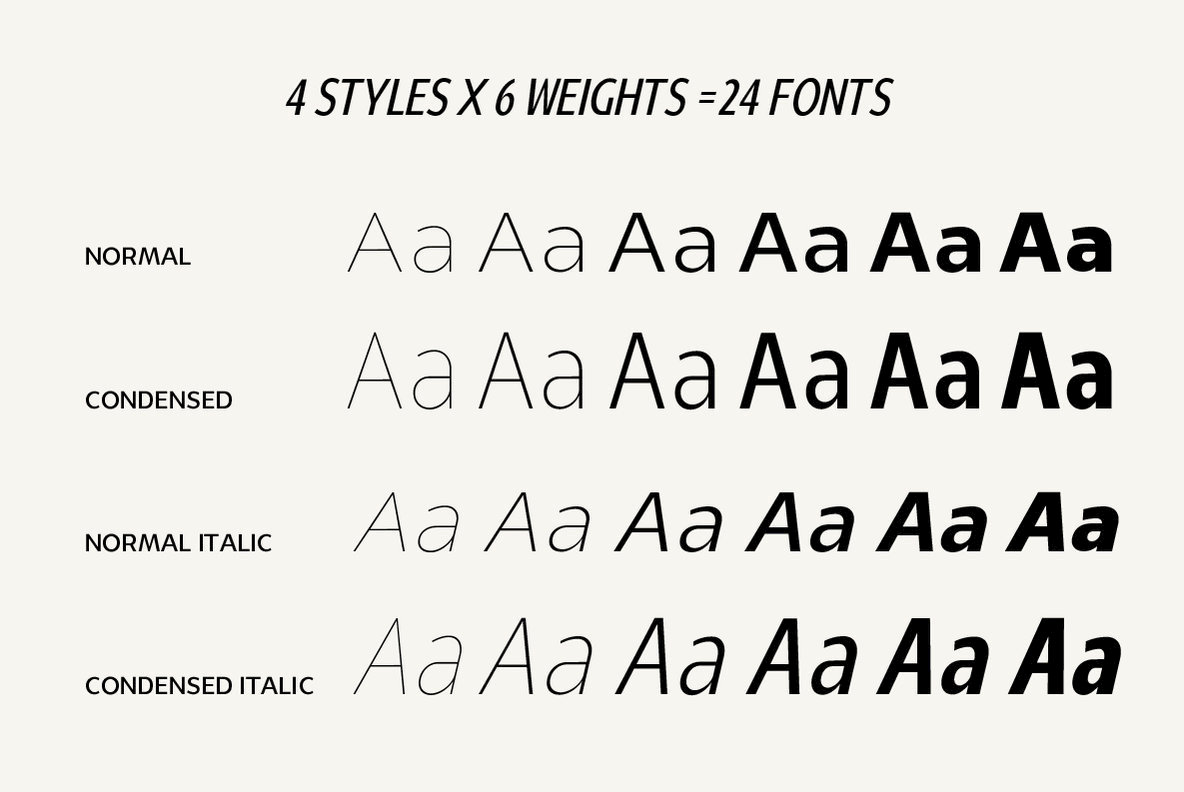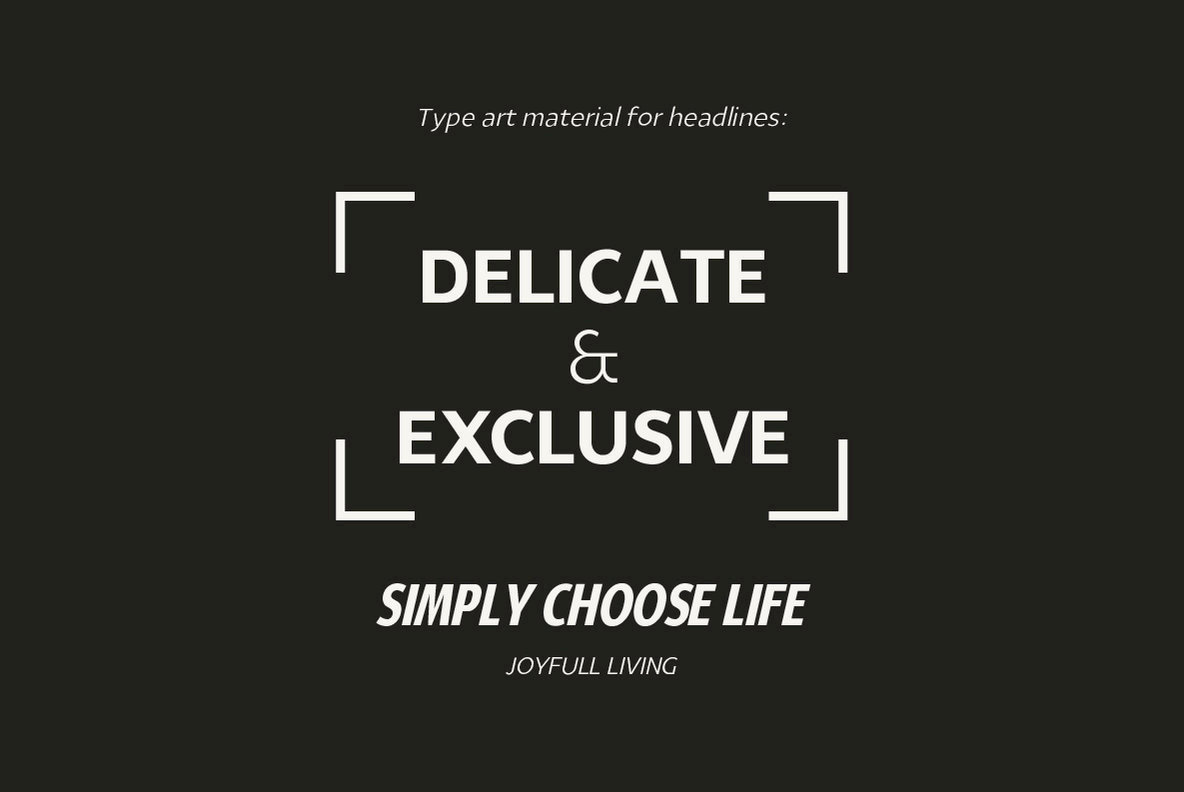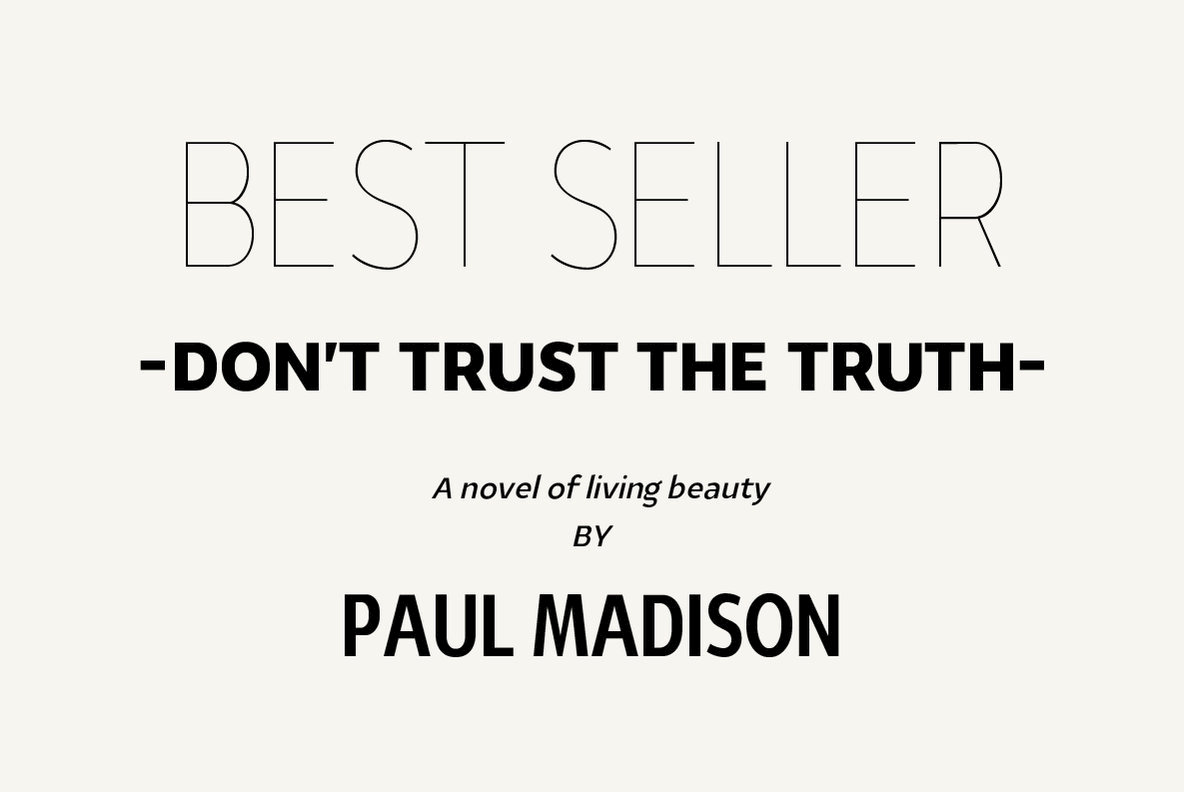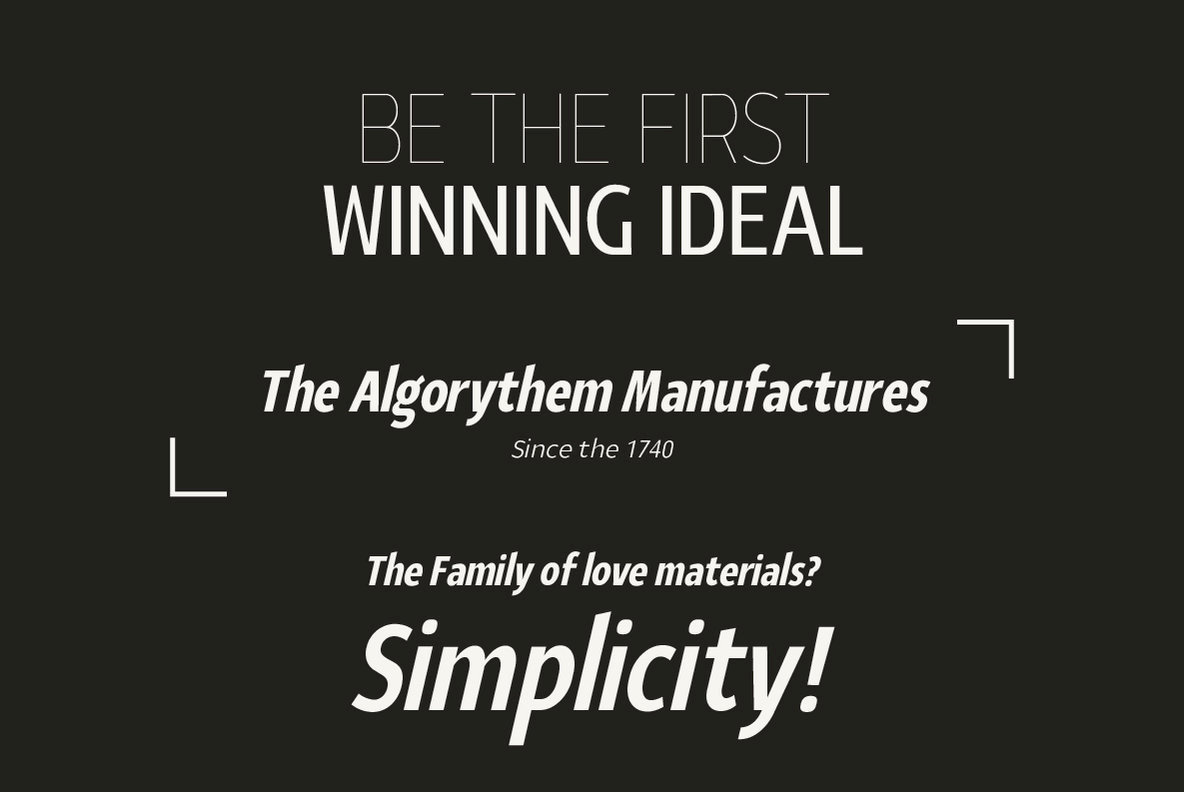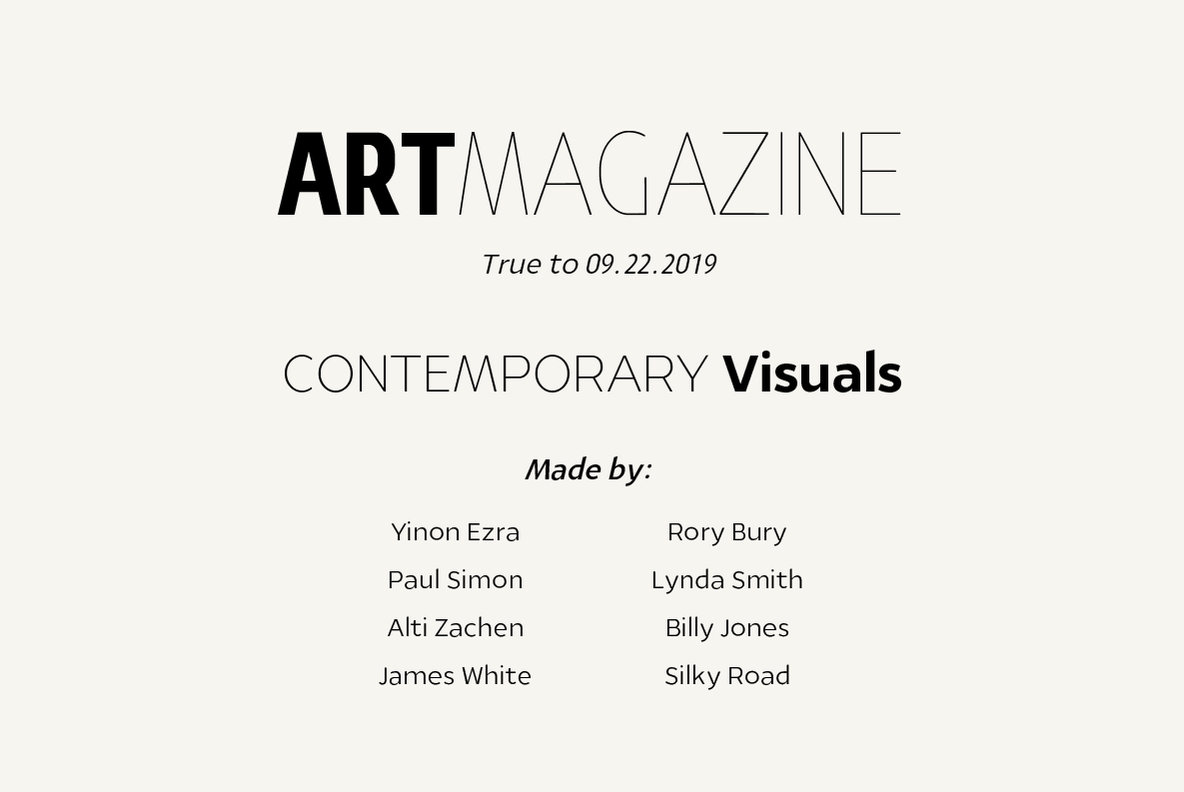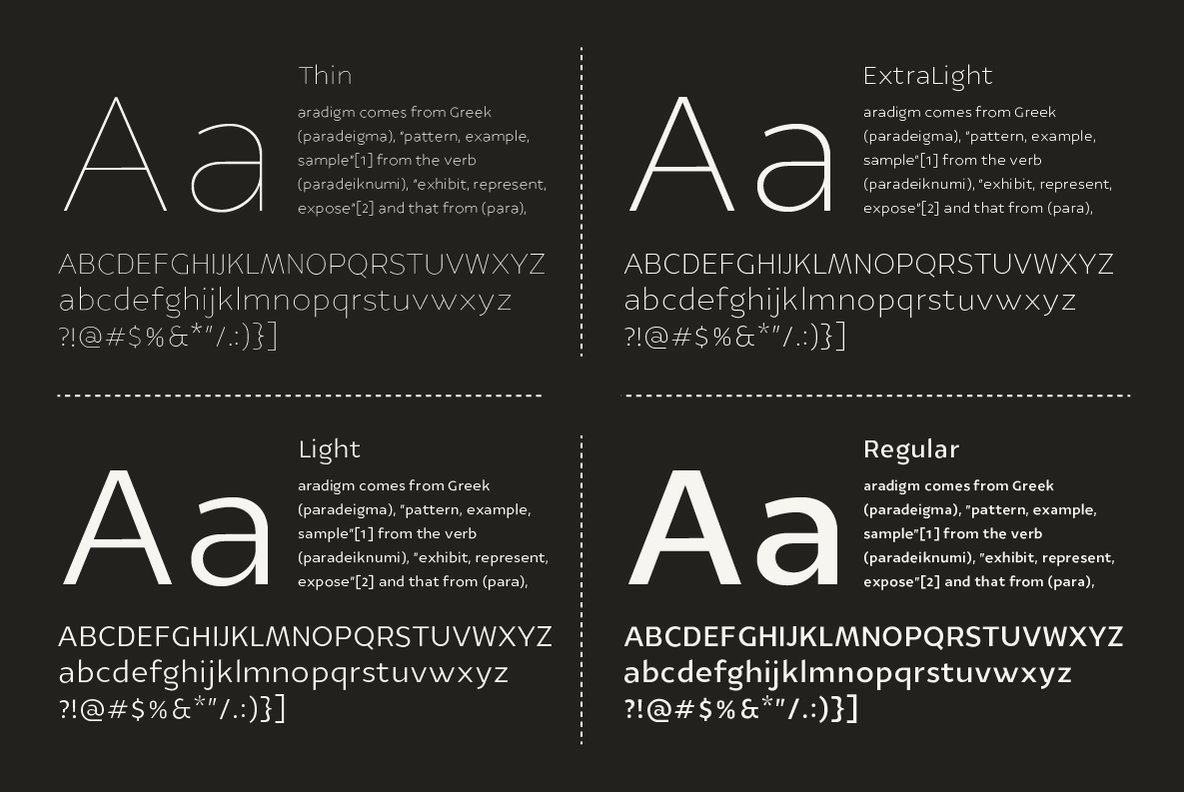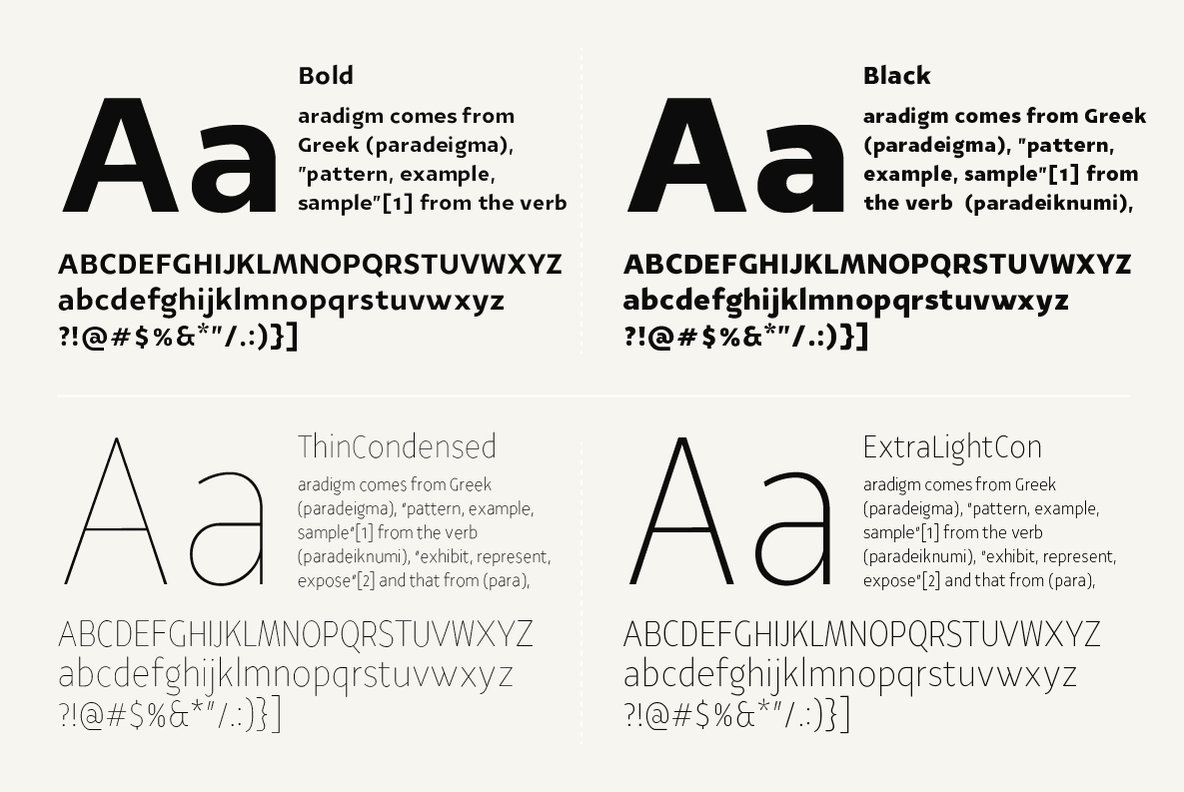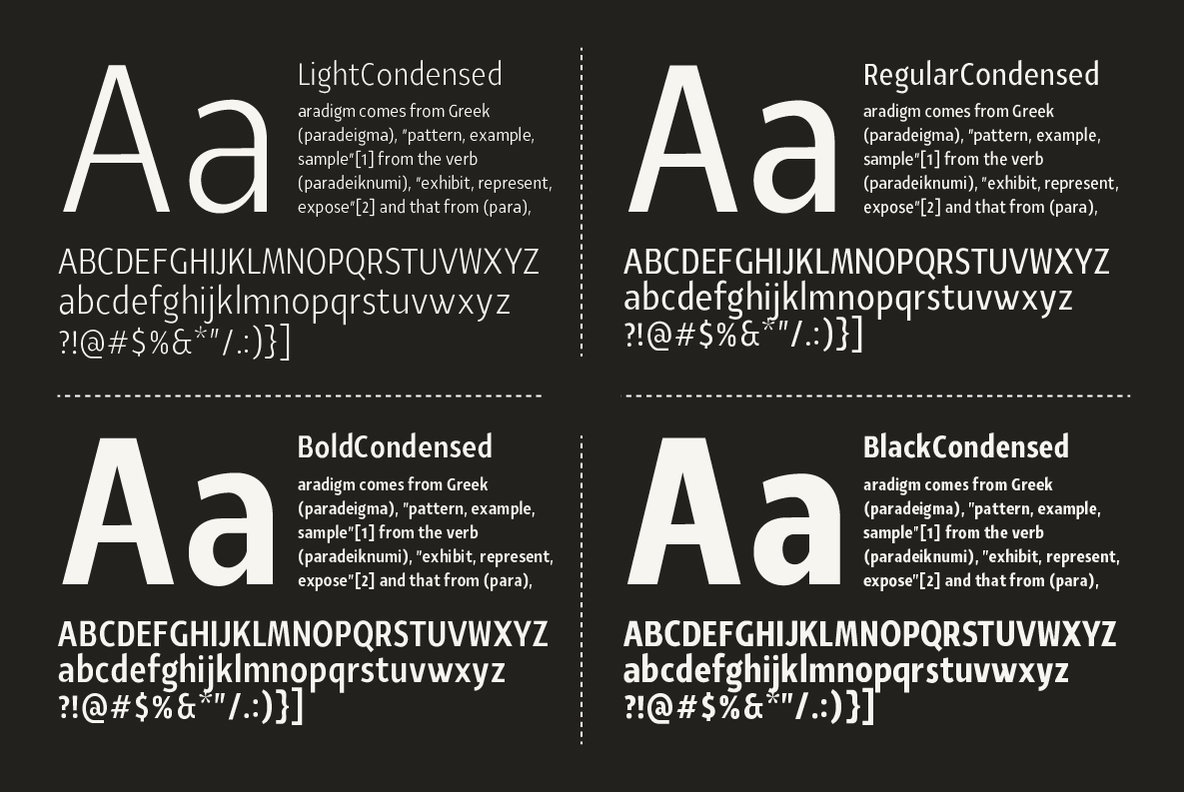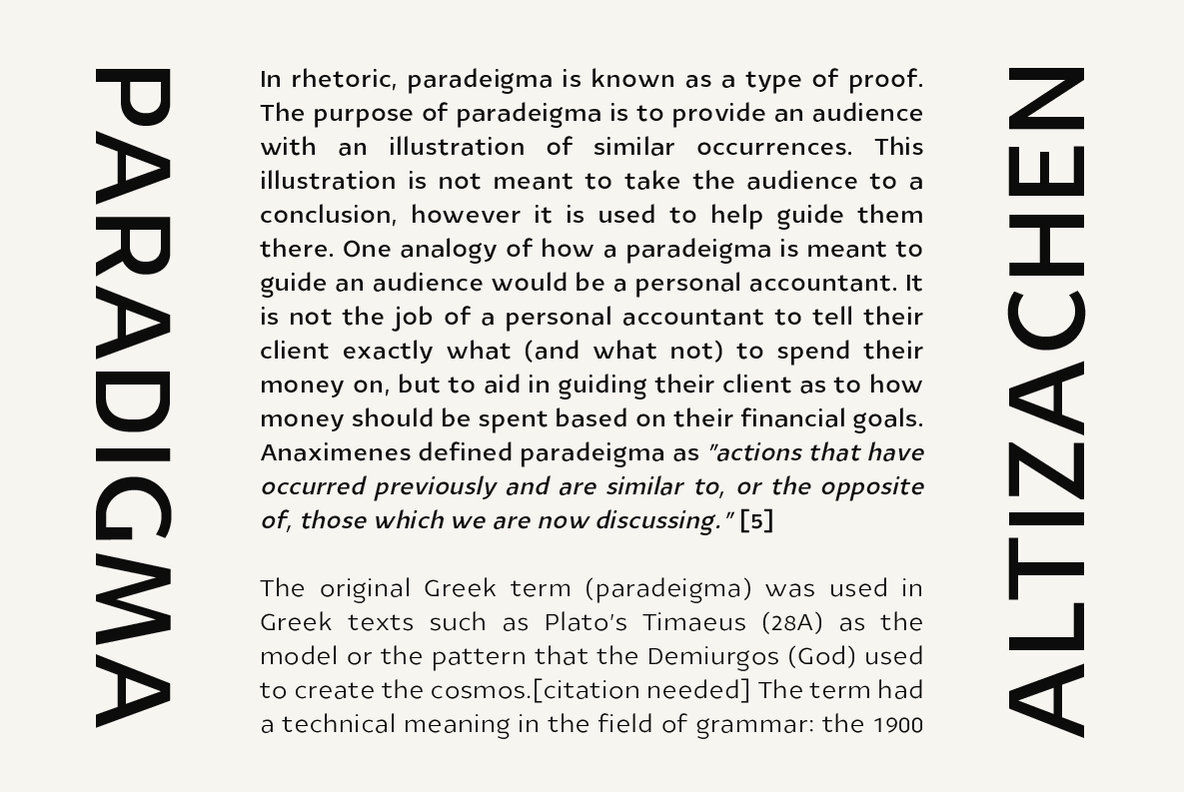
YE Paradigma Font
YE Paradigma is a beautiful sans serif typeface, with 24 weights, including italics & condensed fonts, made with extra tolerance & love! He is so casual that you wouldn't even noticed him, but still he has a lot to say, only when you look carefully you can see his carefully picked blinks.